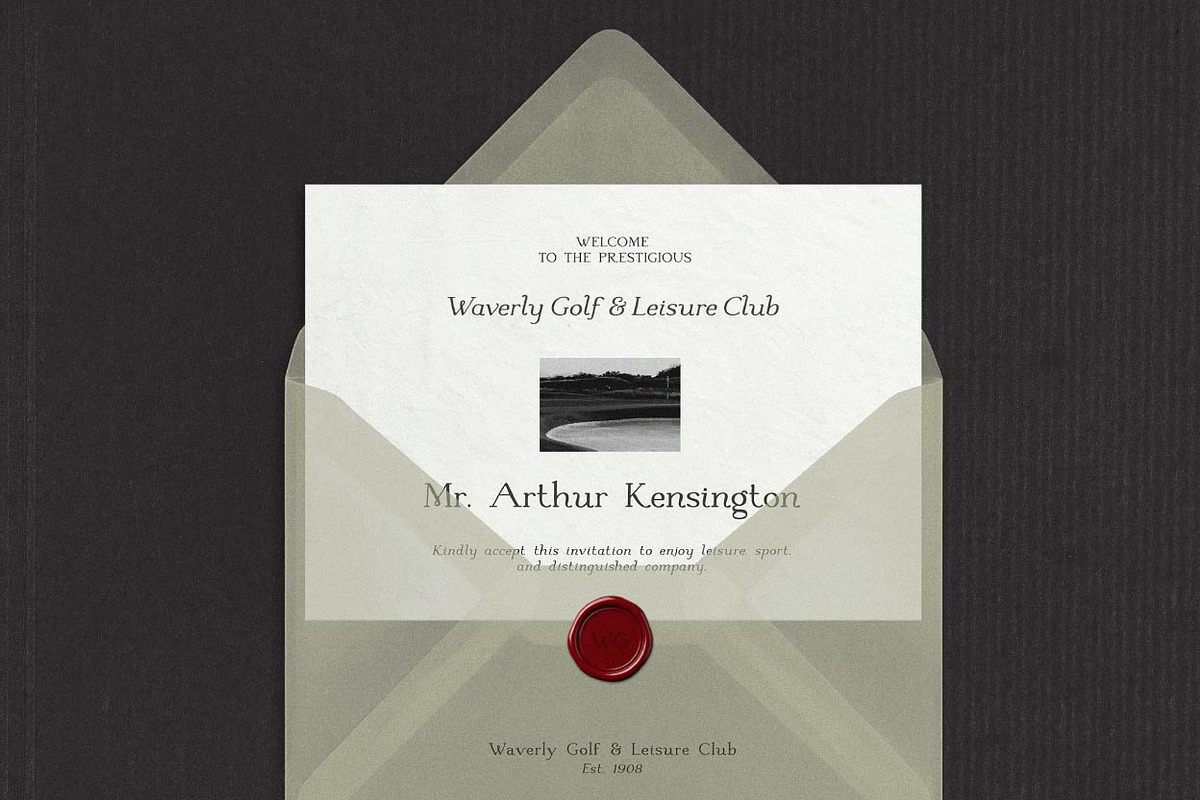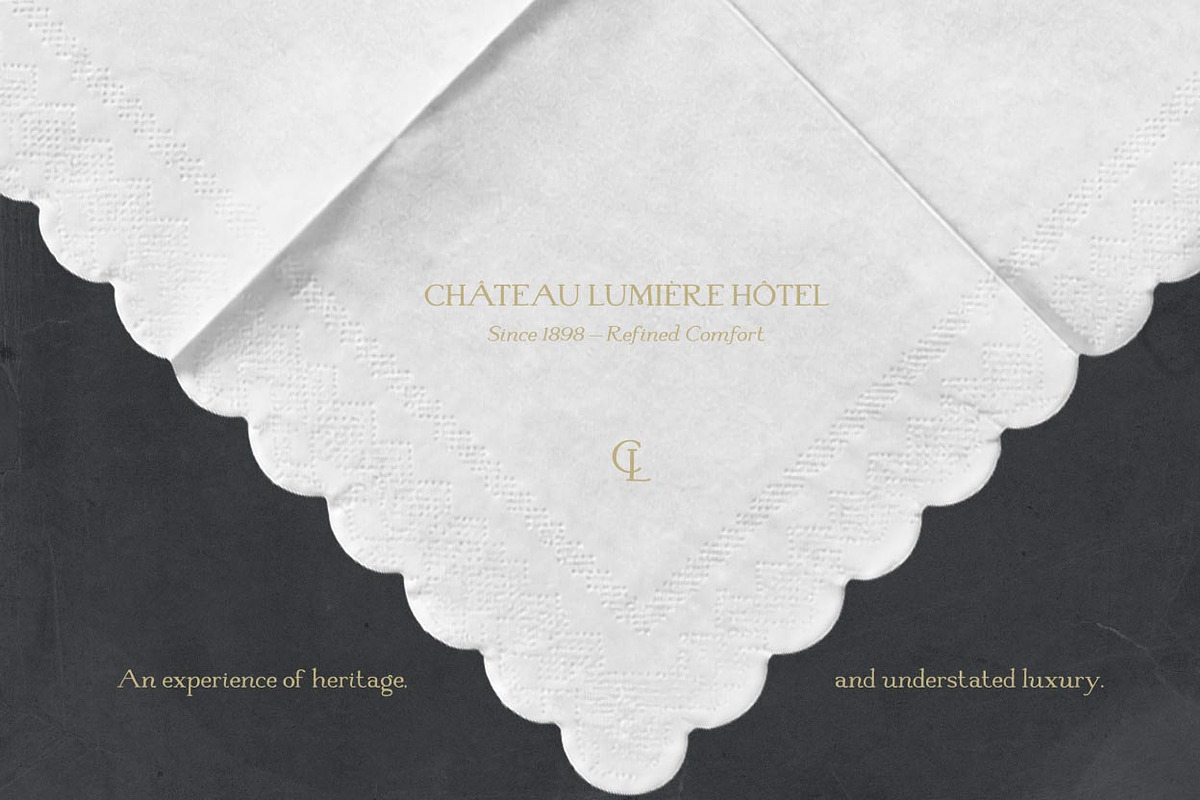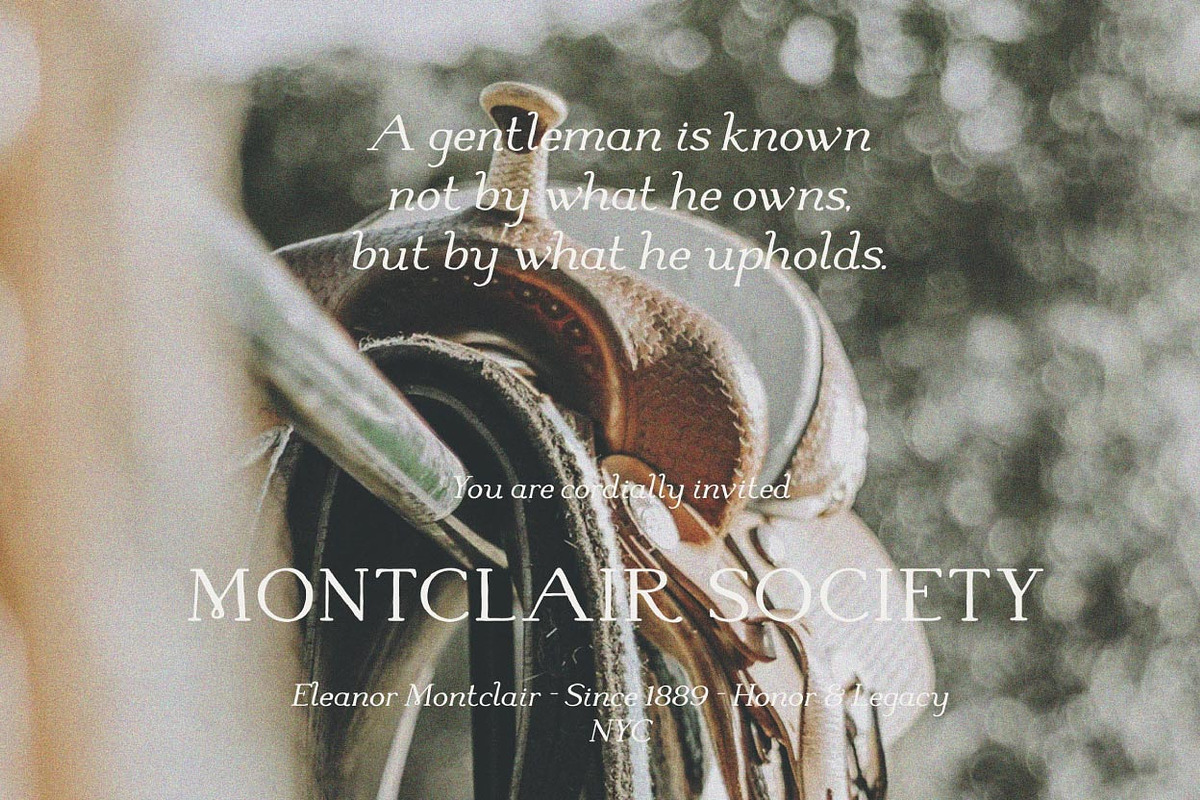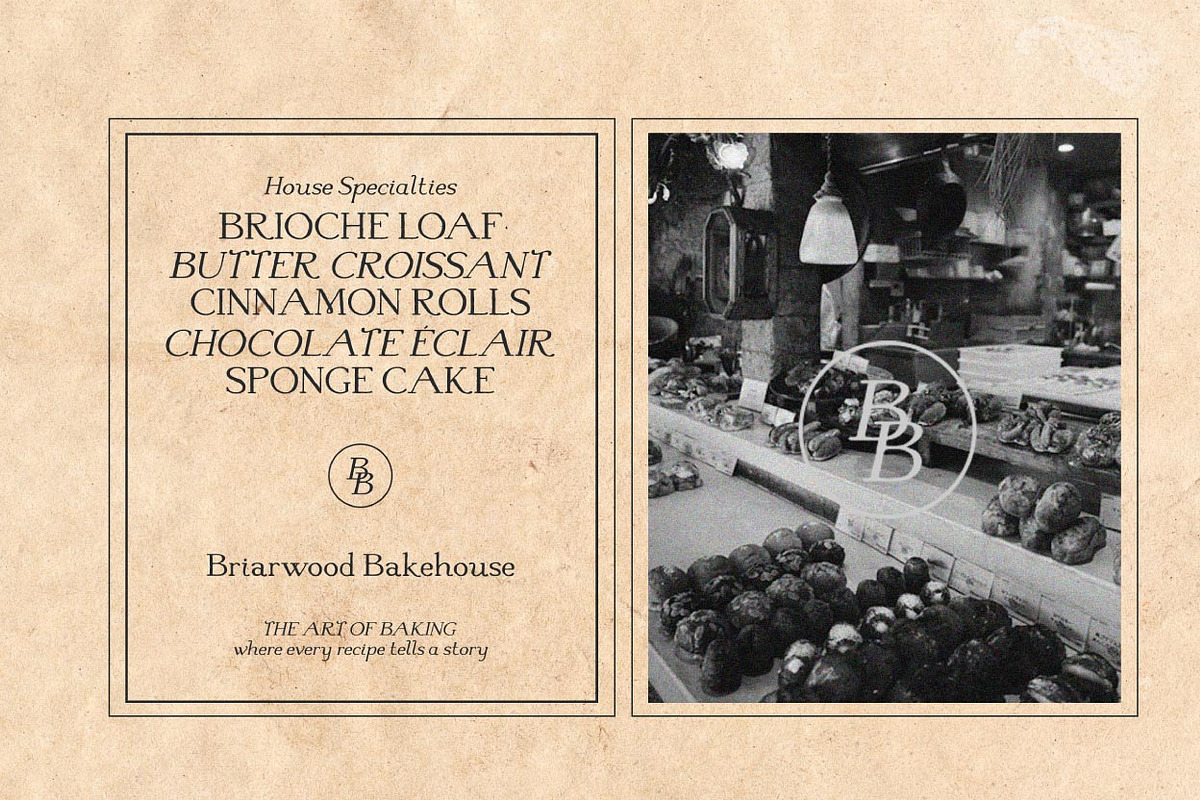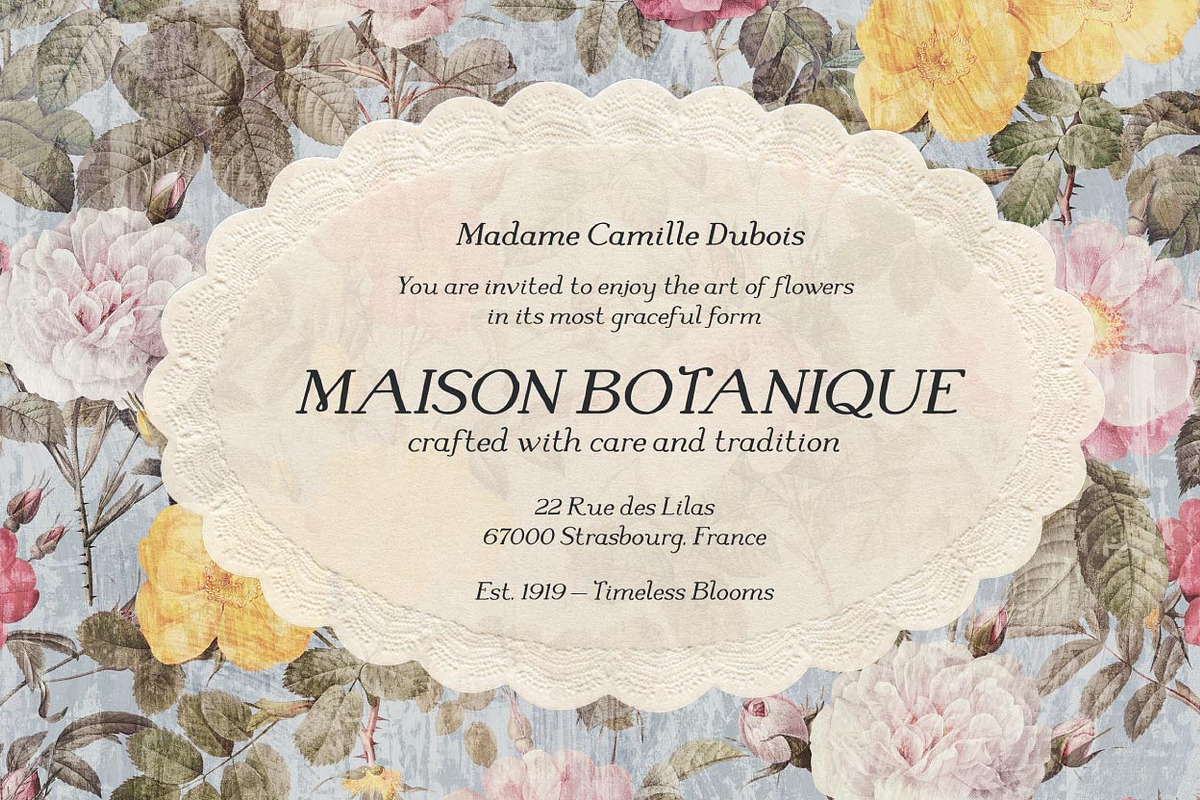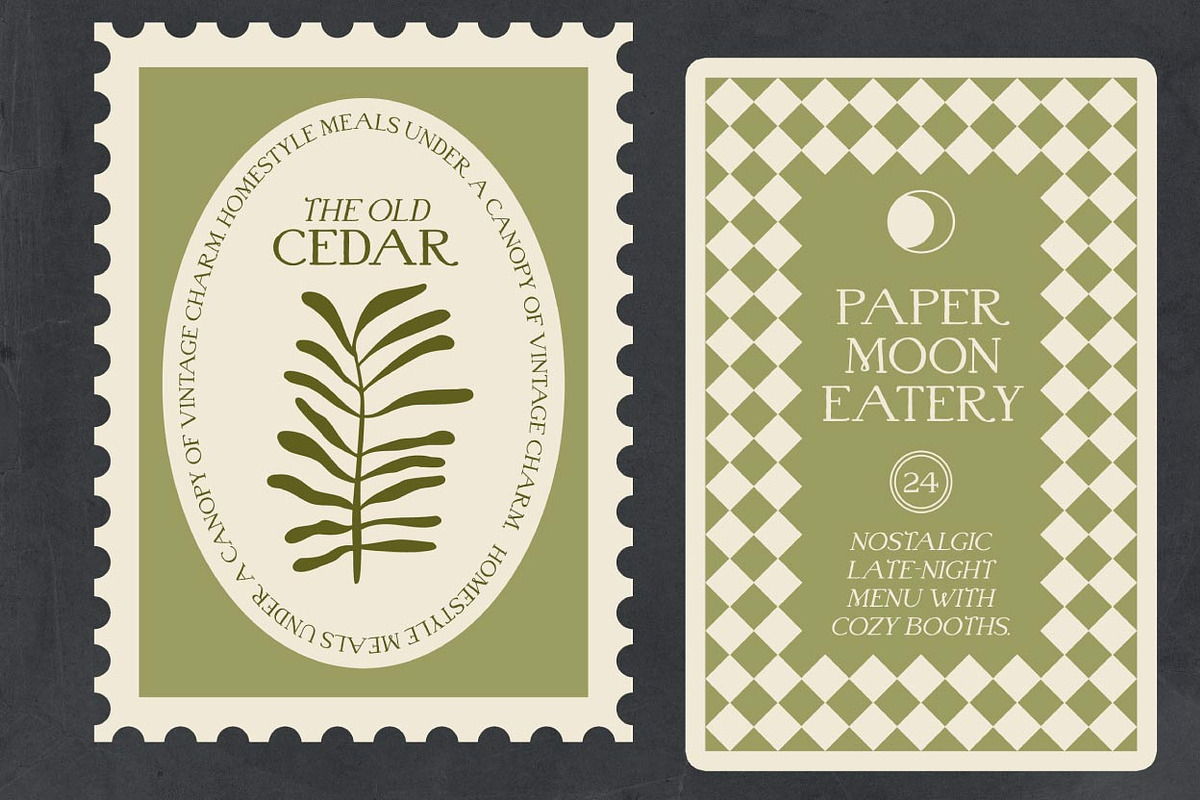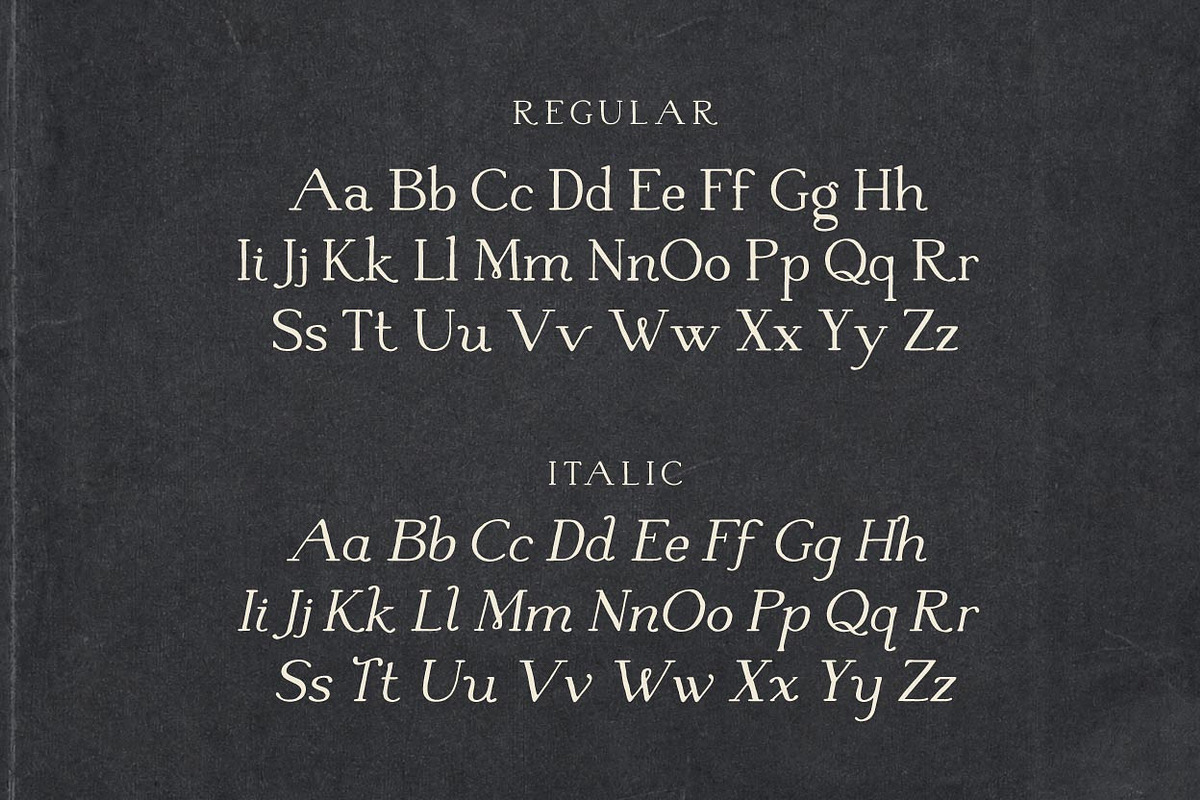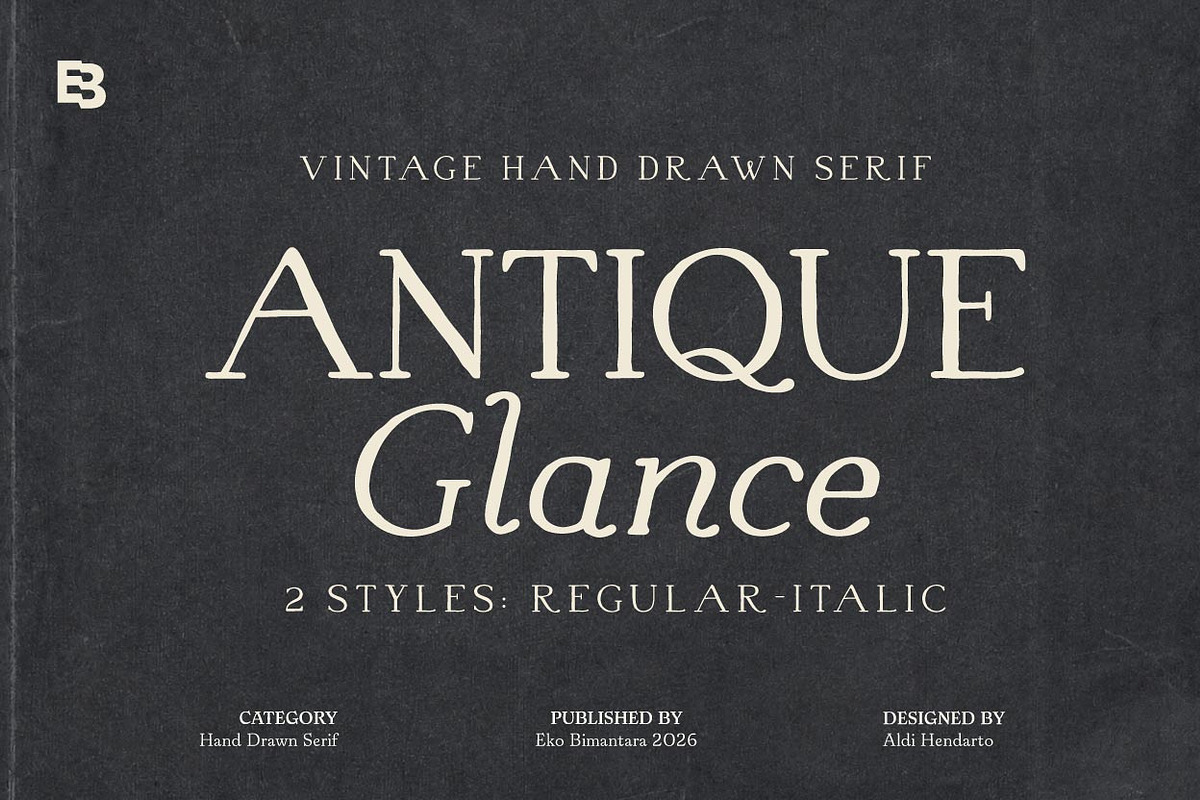
Antique Glance
Antique Glance is a refined vintage hand-drawn serif typeface that blends classic elegance with subtle artisanal character. Featuring graceful proportions, soft contrast, and delicately imperfect strokes, it evokes the timeless charm of traditional print while maintaining a contemporary sensibility. The letterforms are thoughtfully crafted to deliver both readability and personality, making it ideal for editorial design, branding, packaging, and sophisticated display use. With its complementary Regular and Italic styles, Antique Glance offers versatile typographic expression—ranging from poised and formal to gently expressive—perfect for projects that seek a warm, nostalgic, and premium aesthetic.